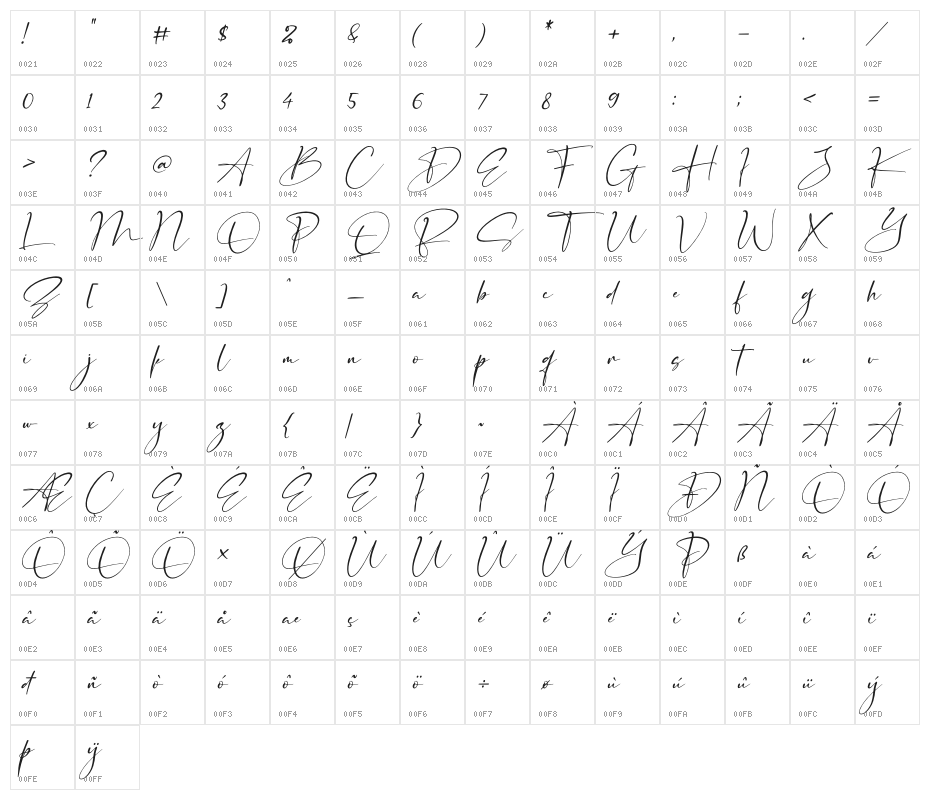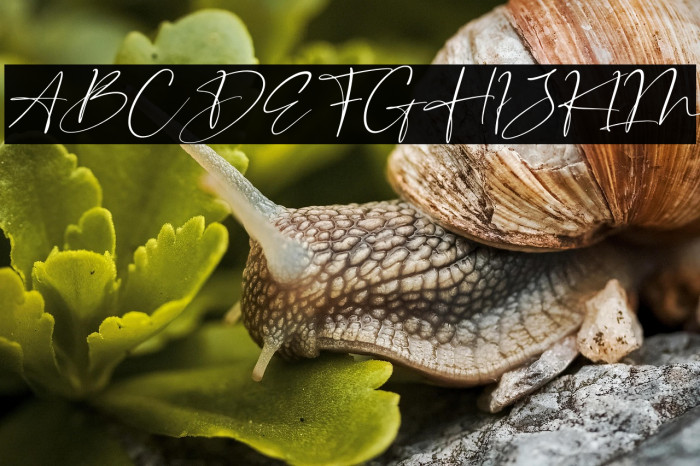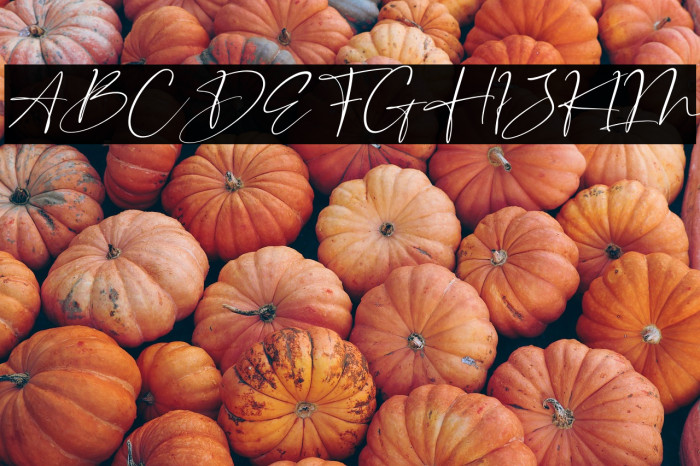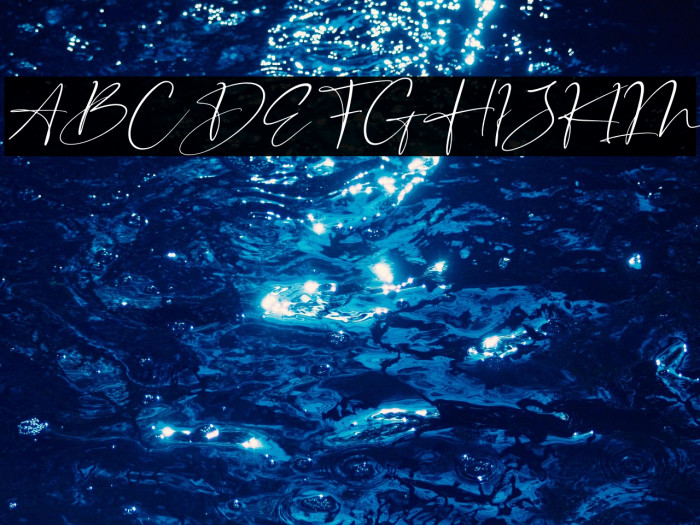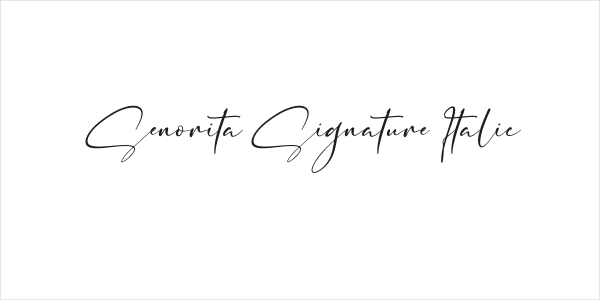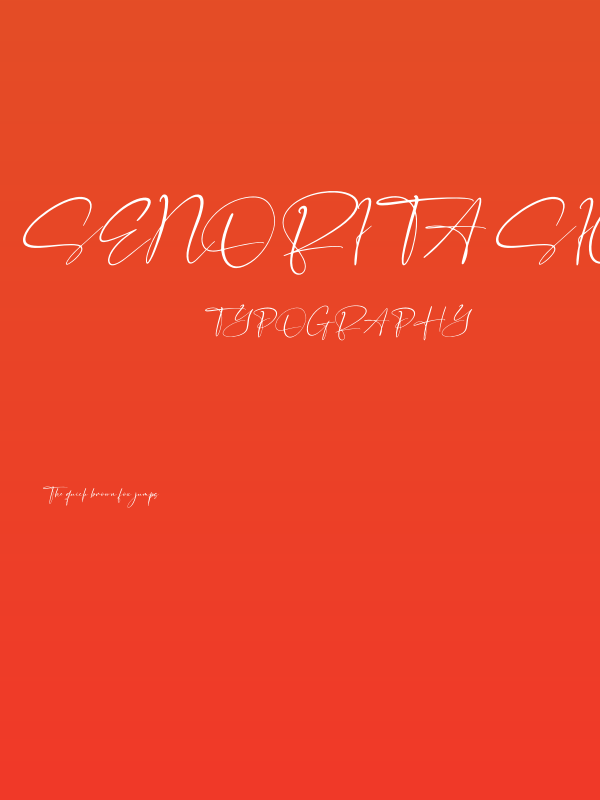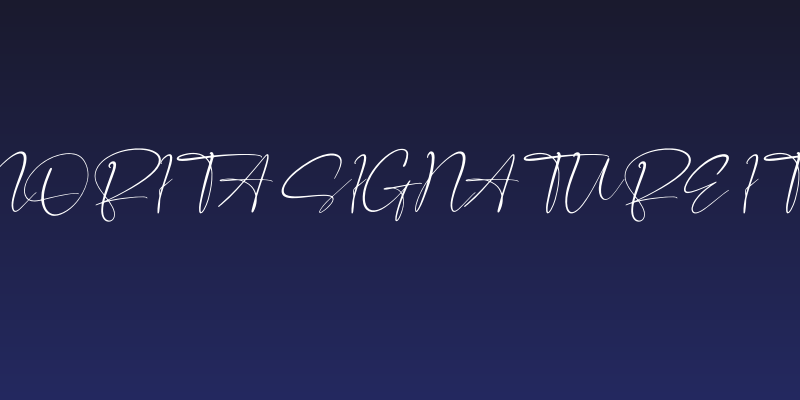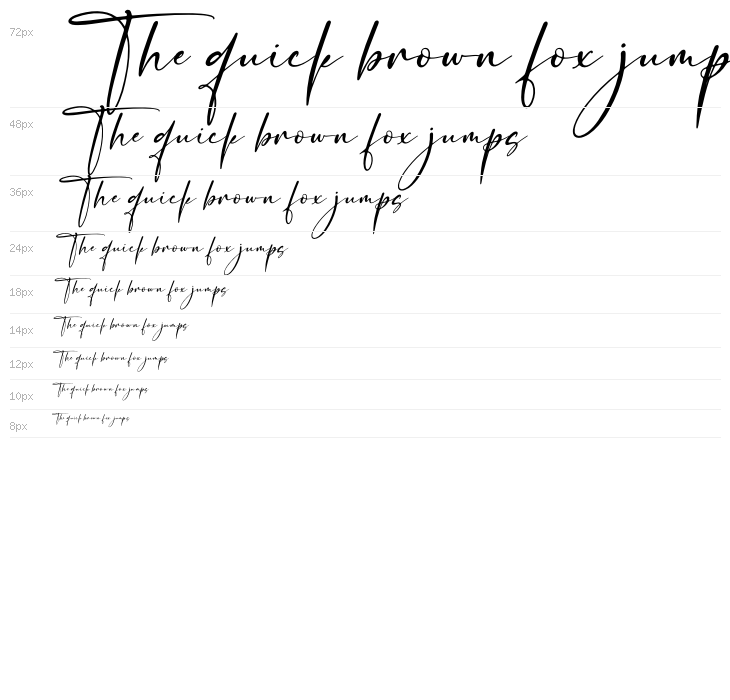
Senorita Signature Italic Font
Senorita Signature Italic Description
This font exudes elegance and sophistication with its flowing, cursive script style. The letters are interconnected, creating a seamless and fluid appearance that mimics the natural flow of handwriting. The uppercase letters are tall and graceful, while the lowercase letters maintain a consistent rhythm and balance. The numerals and special characters are designed to complement the overall aesthetic, featuring the same delicate strokes and curves. This font is perfect for adding a personal touch to any project, offering a sense of warmth and intimacy.
| Overall Style | Elegant, Handwritten |
| Proposed Projects | Ideal for wedding invitations, personal branding, greeting cards, and elegant packaging. |